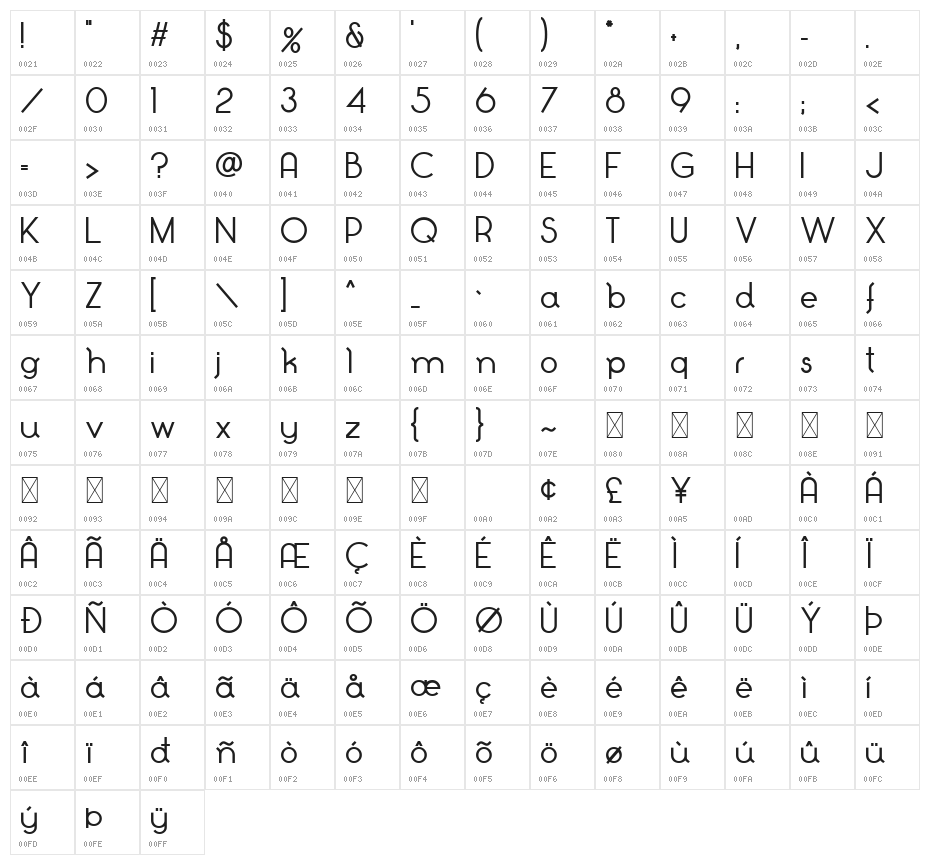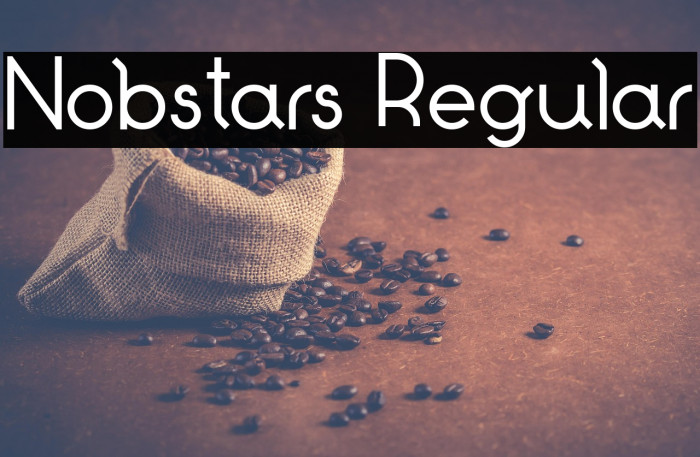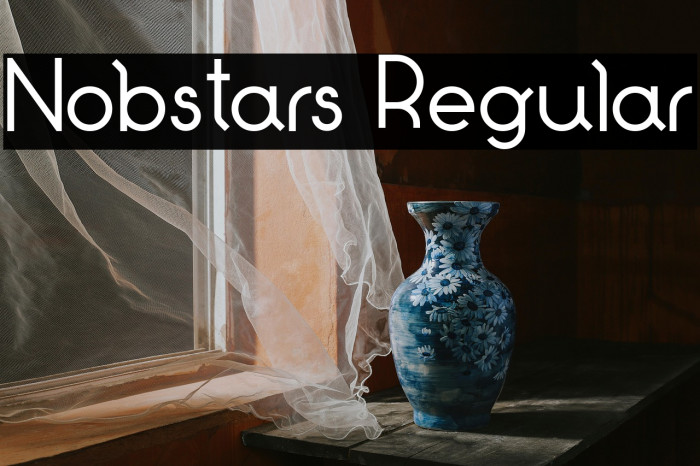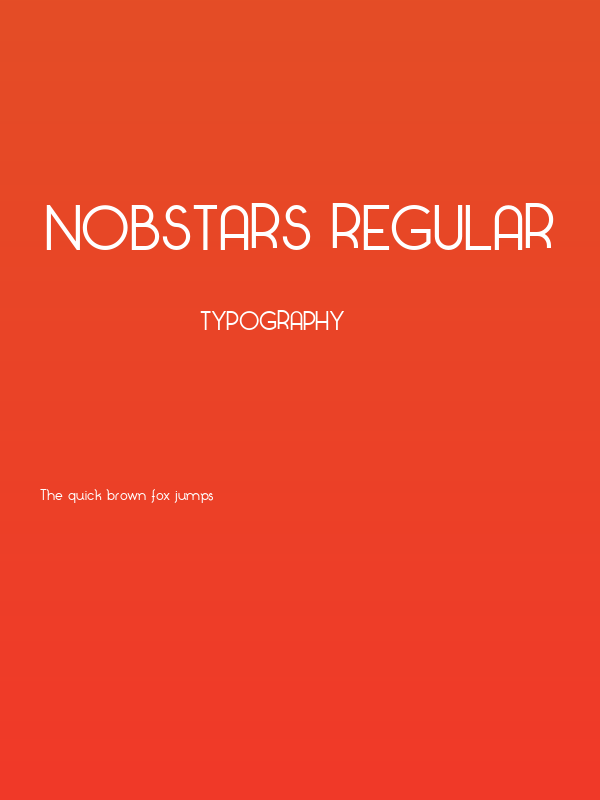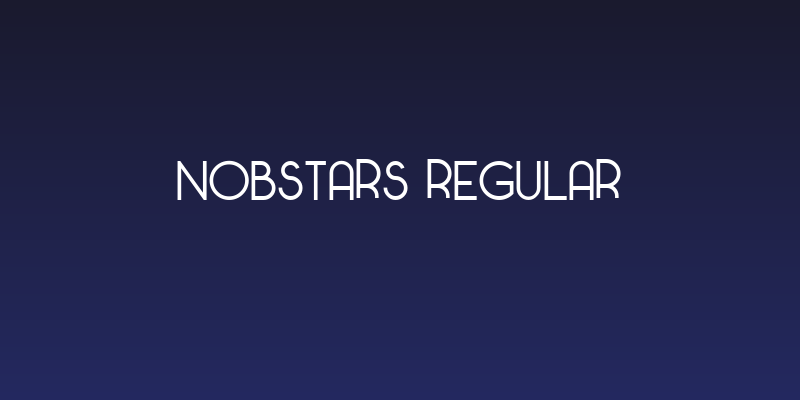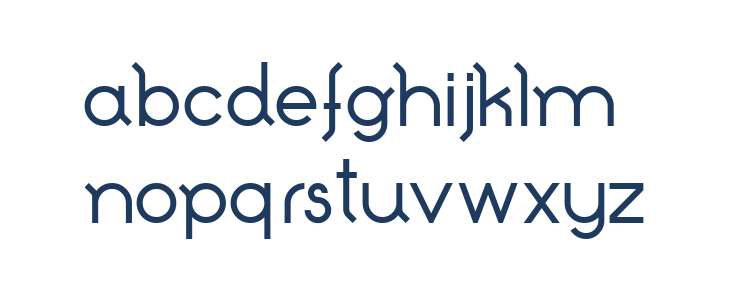
Nobstars Regular Font
Nobstars Regular Description
This font features a clean, geometric design with a modern aesthetic. The characters are crafted with smooth, rounded edges and consistent stroke widths, giving it a sleek and contemporary look. The uppercase letters are bold and prominent, while the lowercase letters maintain a harmonious balance with slightly narrower proportions. The numerals are clear and legible, matching the overall style of the alphabet. Special characters are included, maintaining the same geometric consistency. This font is versatile, suitable for a variety of design projects that require a modern and professional appearance.